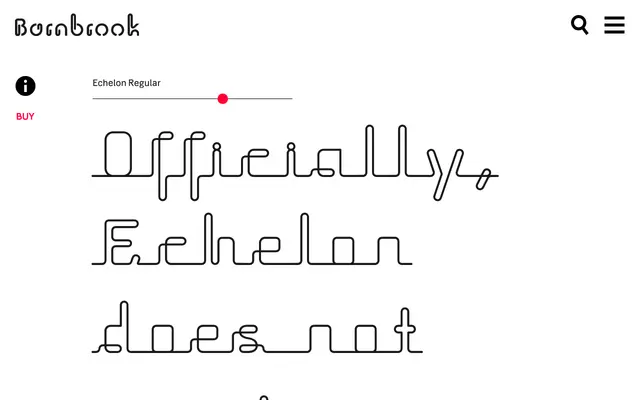
Echelon
A revival of 1970s Eastern European pipe-style lettering, named after the classified international surveillance network.
Drawn from the peculiar strand of Communist consumer typography that flourished in Eastern Europe during the 1970s, Echelon has letterforms that share historical roots with Western type yet carry their own distinctly strange fashionable-unfashionable character. The name references the classified government surveillance network said to monitor satellite communications, bank accounts and private correspondence worldwide. Barnbrook frames the parallel between Soviet-era surveillance and contemporary Western intelligence practices as central to the typeface's identity.
Based on 1970s Eastern European 'pipe-style' lettering with a deliberately stylised, fashion-inflected aesthetic rooted in Communist consumer typography; clearly a display face rather than text.